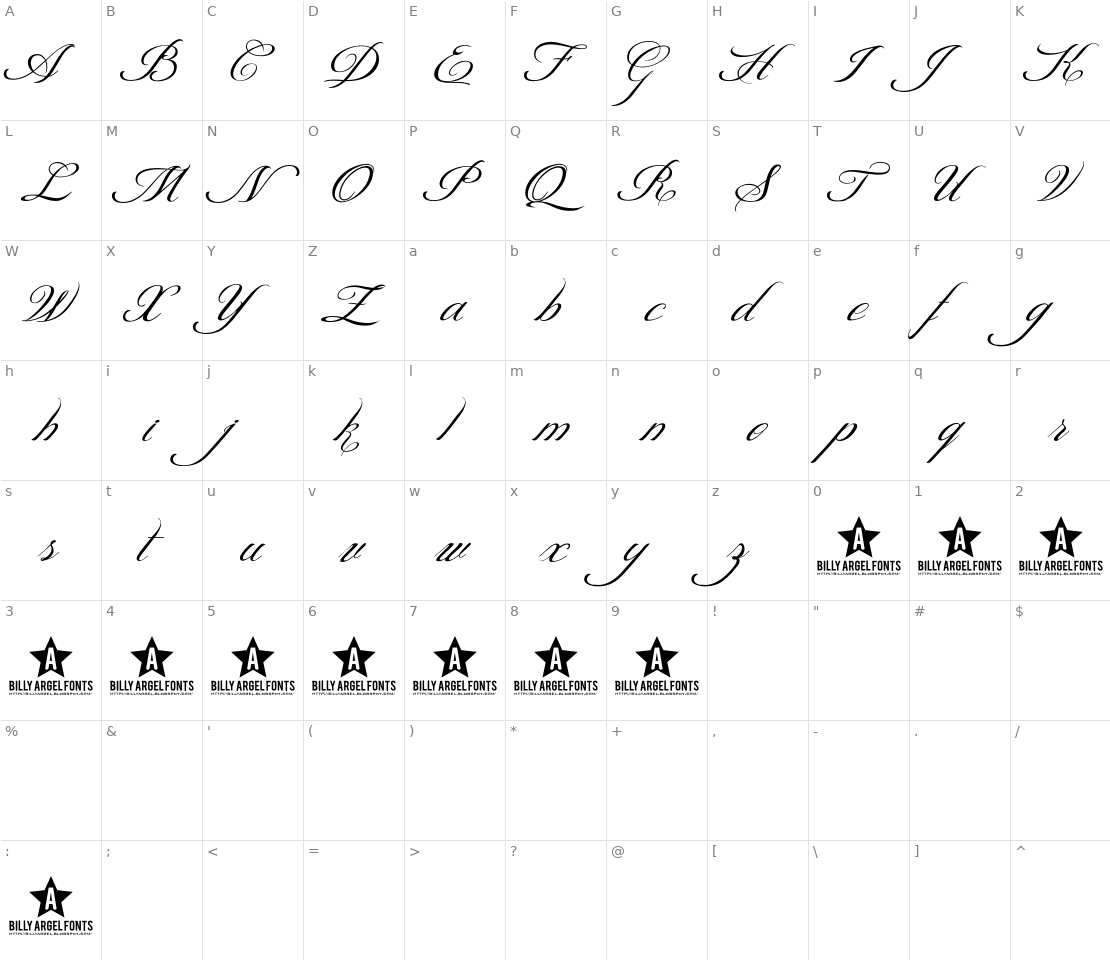
Shit Happens
by Billy Argel · Website
Shit Happens is an ornate calligraphic script from Billy Argel with thin, sweeping strokes and elegant flourishes that belie its irreverent name. The letterforms are delicate and formal, with the kind of looping cursive you'd expect on wedding invitations or high-end stationery. It's a fun contradiction: genuinely beautiful penmanship wrapped around a name that guarantees a double take.